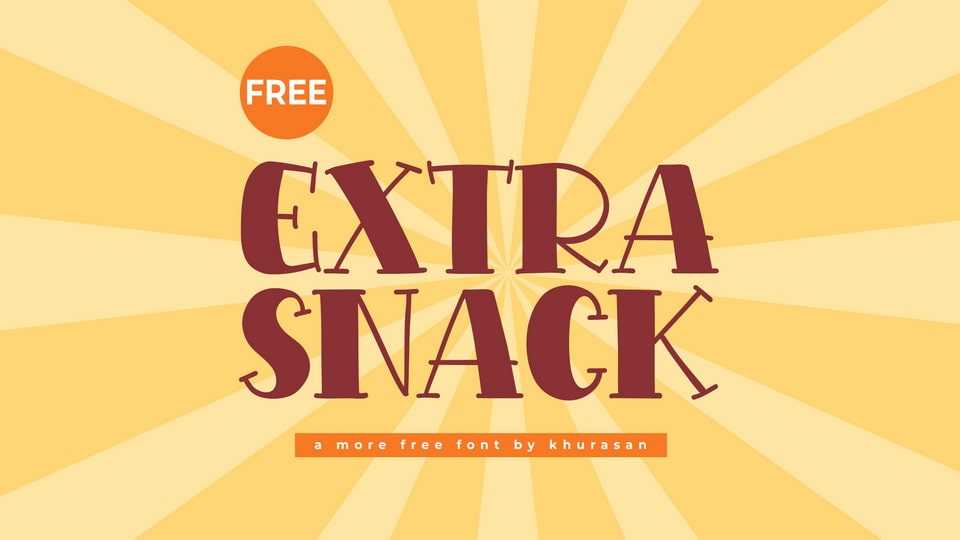
Download Extra Snack font, a playful and quirky hand-drawn typeface that combines bold, blocky letterforms with contrasting strokes for a dynamic and lively look.